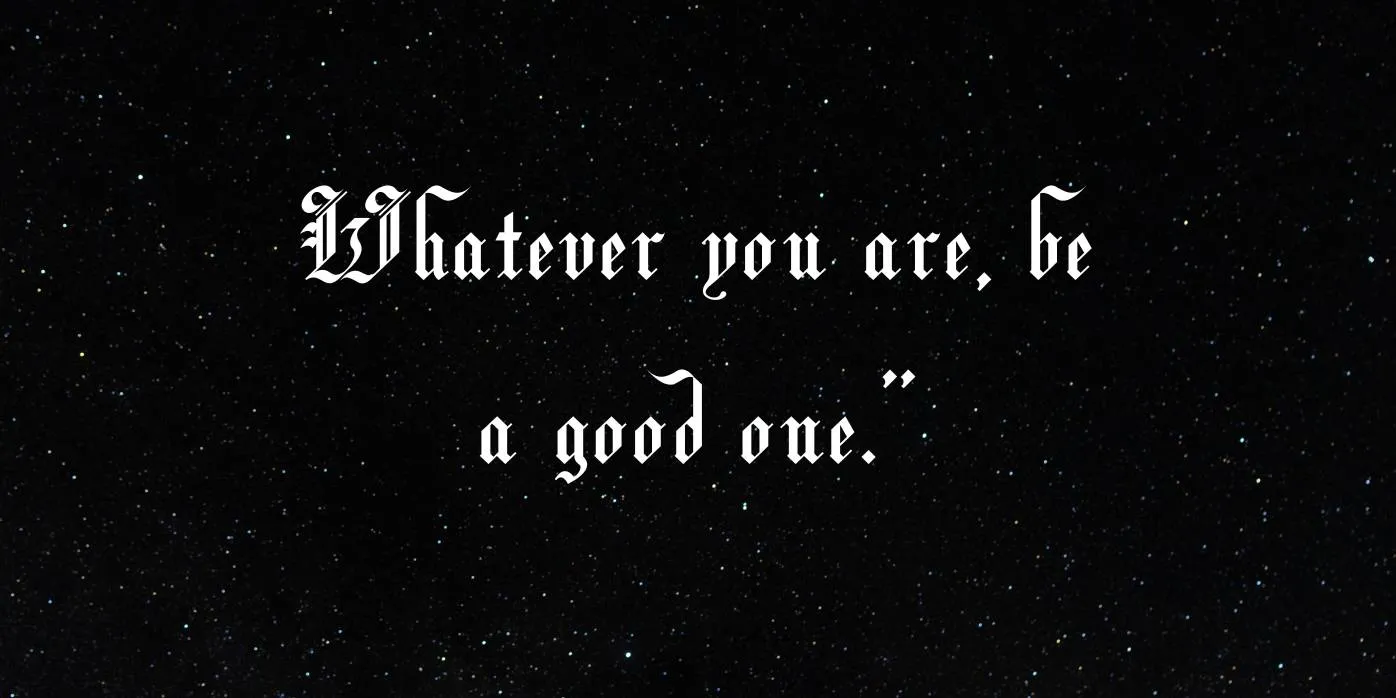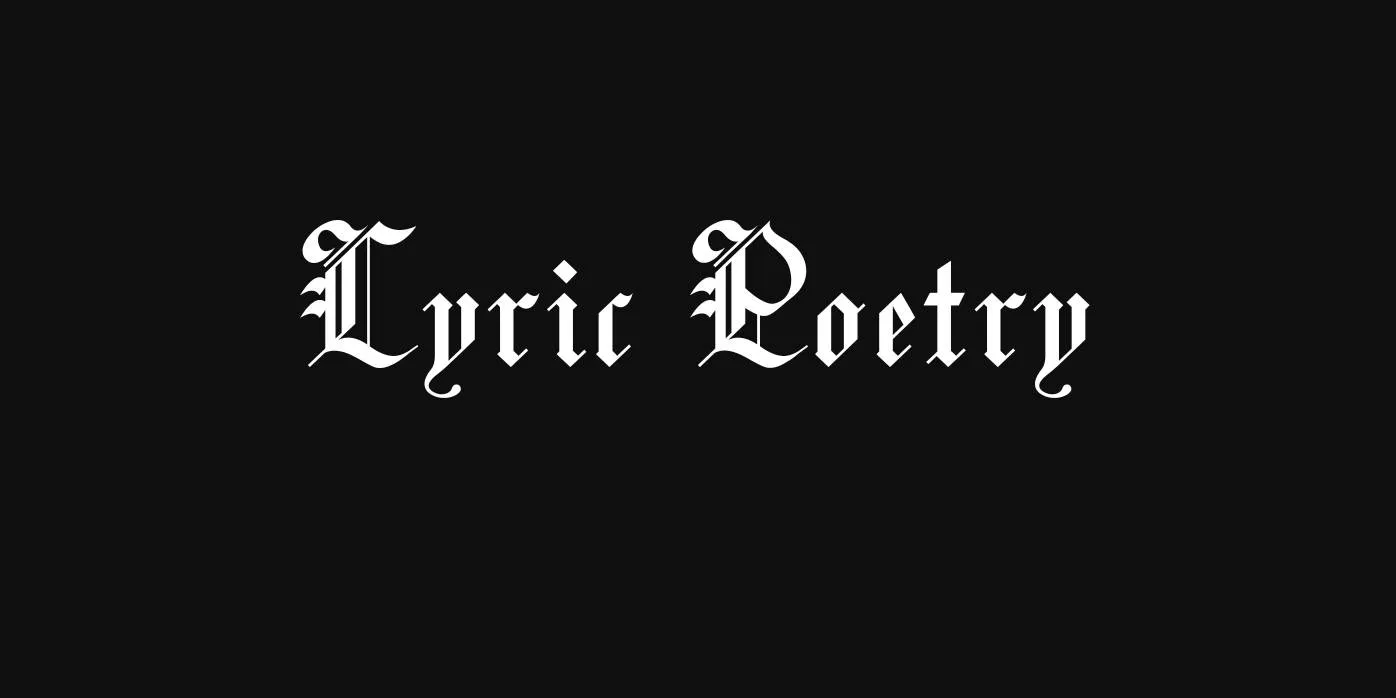
Lyric Poetry Font
Lyric Poetry Font is a Gothic-type font that was designed by Chen Yining. The family of this font has one regular style. Lyric Poetry Font is a good font as compared to the other gothic typefaces. The bad boys font is usually paired with this Gothic-type texture.
This font pair looks very unique and it gives a very amazing look to your design. This brings your text up by giving a pretty look and attracting people to your designs. An online generator tool is also easily transform your simple text. You can use it for your own design’s beauty and your easiness.